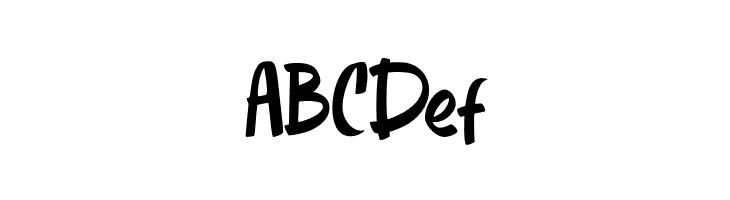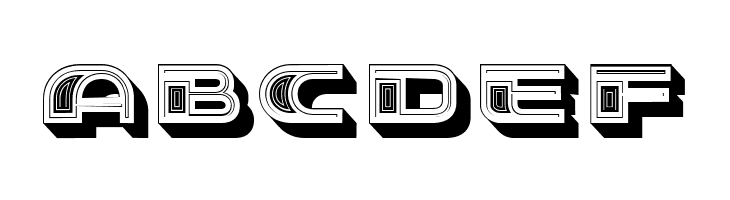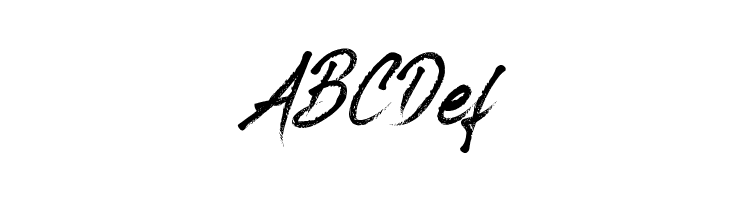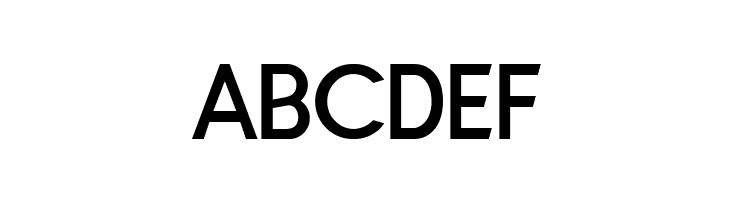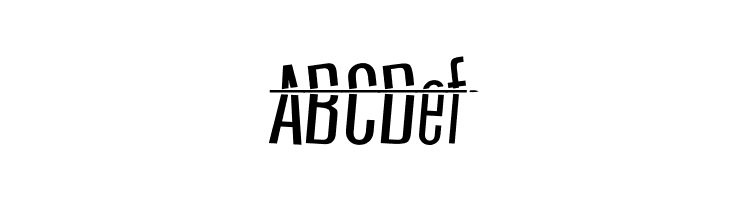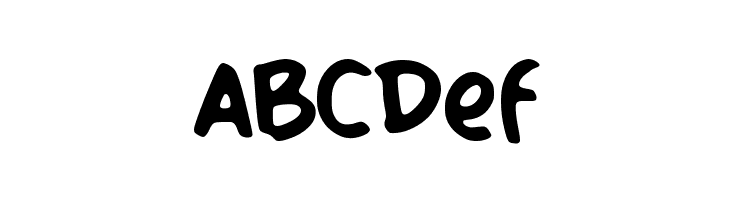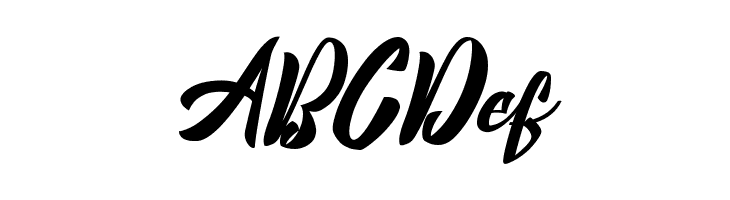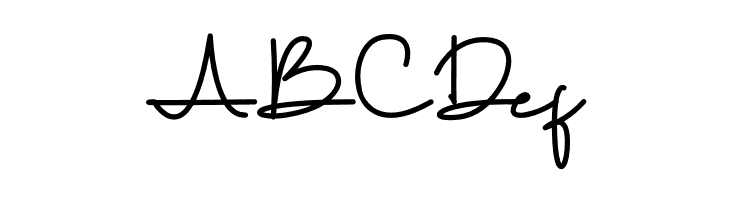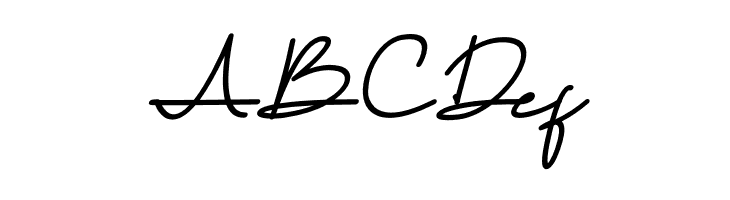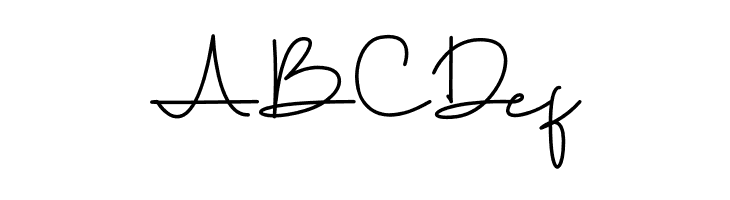
H Fonts
Heal The World Font
A bold, playful handwritten font with thick strokes and rounded edges.
Healan Baby Font
Font by wep
A bold, flowing script font with a playful and energetic style.
Healing Fairy Font
Font by Jadatype
Light, whimsical handwritten script with tall, airy letterforms.
Healing Fairy Bold Font
Font by Jadatype
A whimsical handwritten script with playful, flowing lines.
Healing Fairy Bold Italic Font
Font by Jadatype
Handwritten, bold, italic script with a playful and elegant style.
Healing Fairy Italic Font
Font by Jadatype
Elegant, handwritten cursive script with a whimsical, airy style.
Healing Fairy Light Font
Font by Jadatype
Light, whimsical handwritten script with tall, airy letterforms.
Healing Fairy Light Italic Font
Font by Jadatype
Light, whimsical handwritten script with a pronounced italic slant.
Healing Sunday Font
Font by Gassstype
Healing Time Demo Font
A bold, modern font with sharp angles and smooth curves, ideal for striking headlines.
Healing Time Demo Bold Font
A bold, modern font with geometric shapes and clean lines, perfect for impactful headlines and branding.
Heallington Personal Use Font
A casual, handwritten font with a flowing and dynamic style.
HealthcareSymbols Font
A healthcare-themed icon font with medical symbols.
Healthy Alternative Font
Font by Apostrophic Lab
A bold, geometric font with strong, modern letterforms.
Healthy World Font
A playful, handwritten font with smooth, rounded edges and a modern, casual style.
HEALTHYFIX Font
Font by Billy Argel
A bold, textured font with a rugged, vintage appearance.
HEALTHYFIX PERSONAL USE Regular Font
A bold, textured font with a vintage, distressed style.
Heanffe Font
An elegant and flowing script font with decorative loops and swirls.
Heart Font